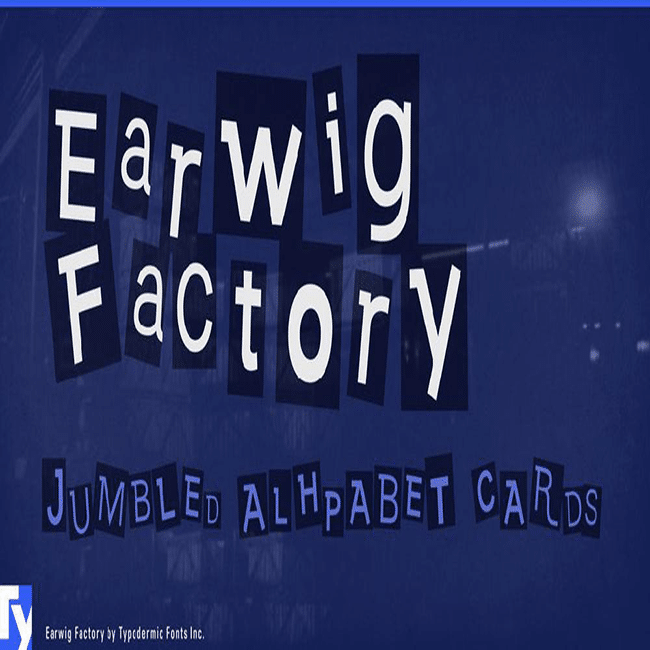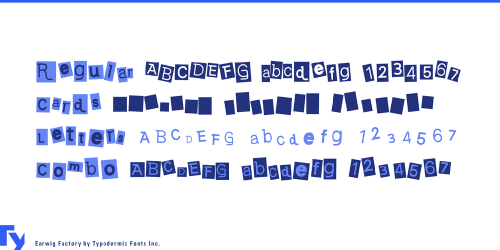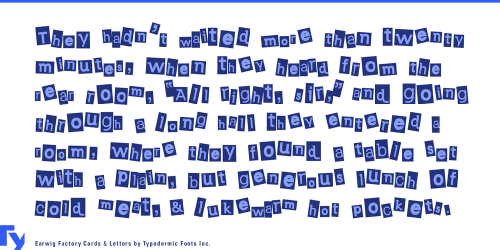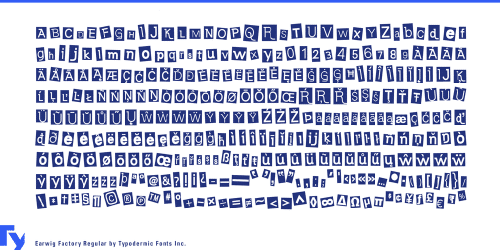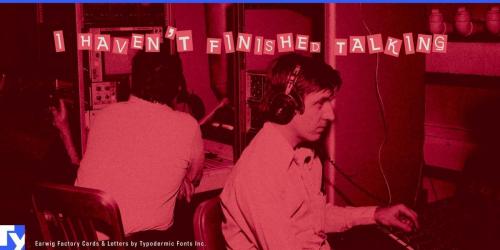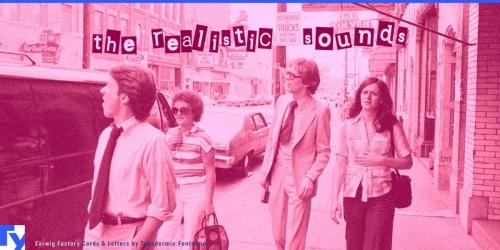
Earwig Factory is a scattering of jumbled cut-outs. In OpenType savvy applications, letters and numerals are pseudorandomized for a more natural effect. The letters and cards styles can be used to create compelling color/texture layers. The cards style can be offset to create a drop shadow effect.
- Designer: Ray Larabie